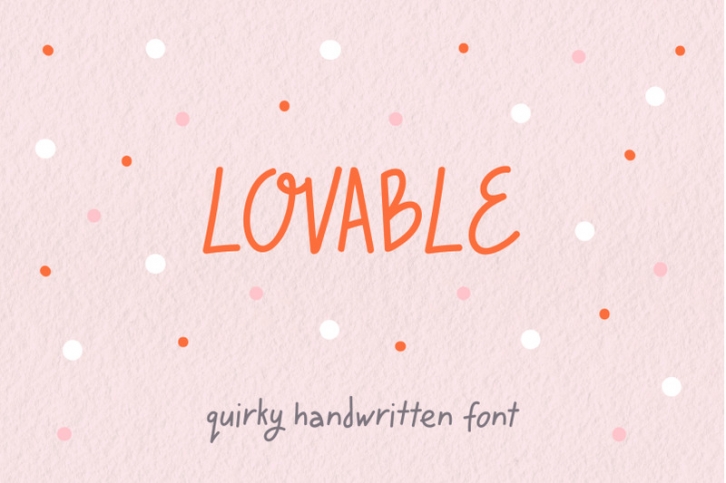
Lovable | Quirky Handwritten Font Download
LOVABLE is a quirky handwritten font with positive vibe! Includes uppercase, lowercase, numbers, punctuation, symbols and language support. Perfect for logos, branding, cards, t-shirt prints, stationery, digital products etc.